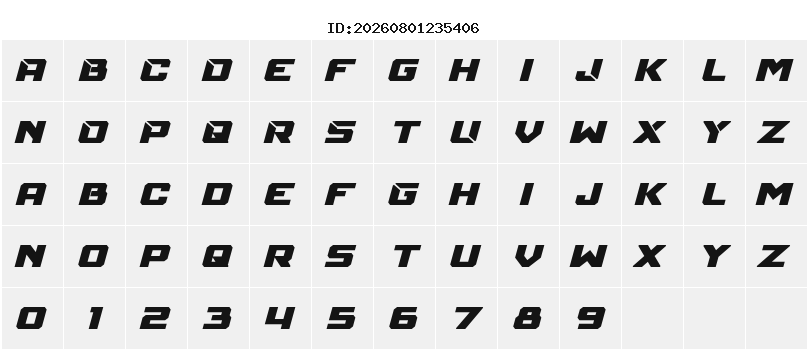
Mechfire Preview
• Font Name: Mechfire
• Full Font Name: Mechfire Bold Italic
• Designer: Neale Davidson
• Manufacturer: Pixel Sagas
About Mechfire.otf
Mechfire.otf is a modern, elegant sans-serif font designed for ultimate readability and visual harmony. Perfect for branding, headlines, web design, and print materials.